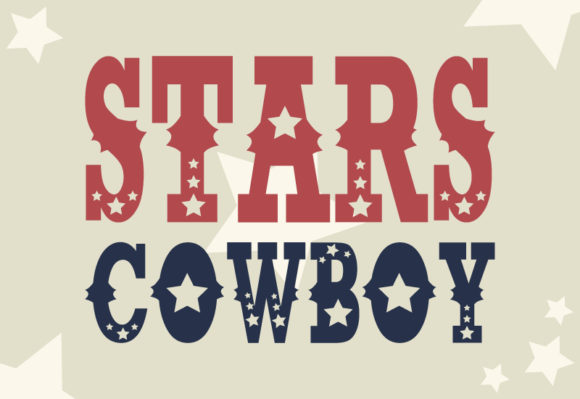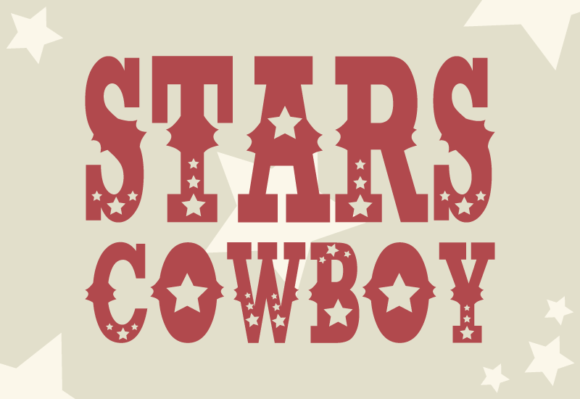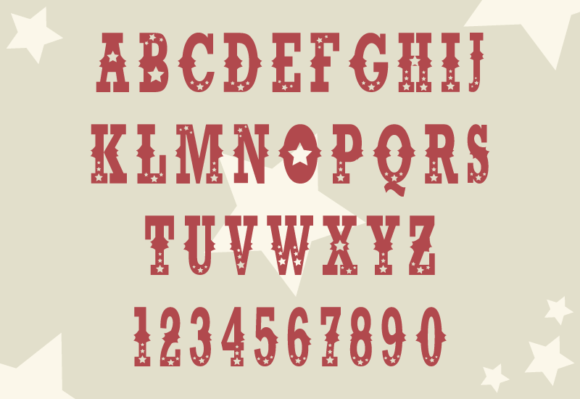
Stars Cowboy Font: A Vintage Western Display Font
About the Stars Cowboy Font
The Stars Cowboy Font is here to transform your projects with its distinctive character and style. Introducing Stars Cowboy, a font that perfectly marries a touch of celestial sparkle with the rugged charm of the Old West. Its star-flecked design and clean, retro aesthetics lend themselves exceptionally well to a minimalist style. Stars Cowboy, featuring classic vintage proportions, is an optimal choice for those looking to infuse a sense of nostalgia and simplicity into their logos, web designs, or branding ventures. Experience a harmonic balance between the timeless and modern with Stars Cowboy.
Stars Cowboy Font Usage Examples
Stars Cowboy Font Example